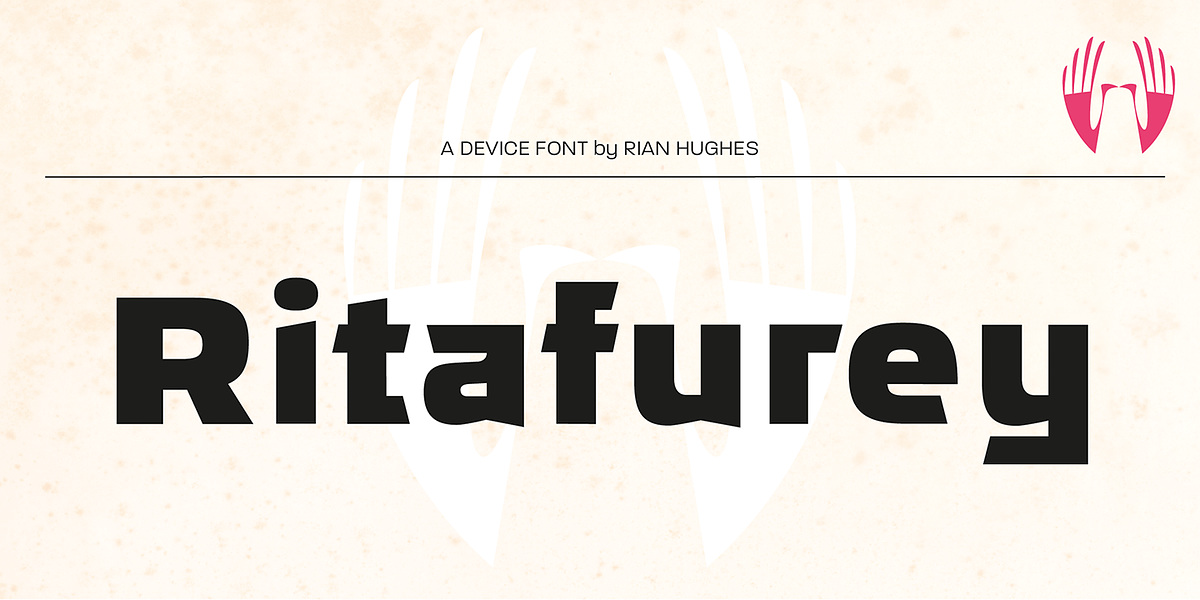
Ritafurey
This geometric display sans-serif font family is designed with an extended style, lending itself well to sci-fi themed projects. Its modern and technological feel makes it suitable for headlines, branding, and futuristic designs.